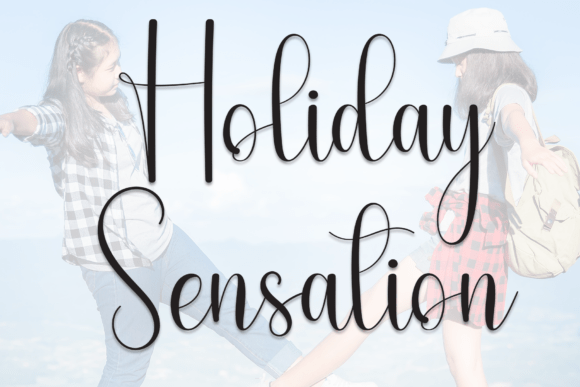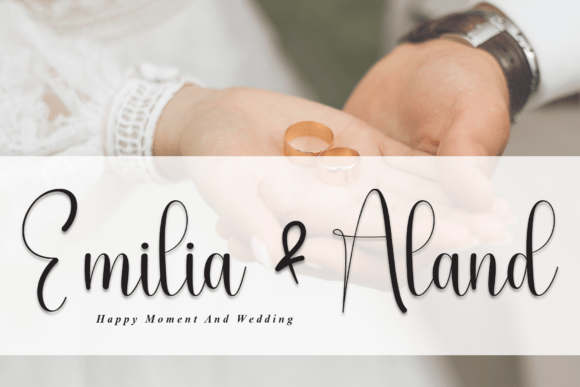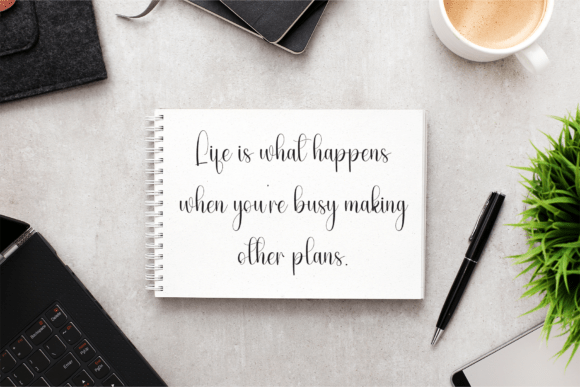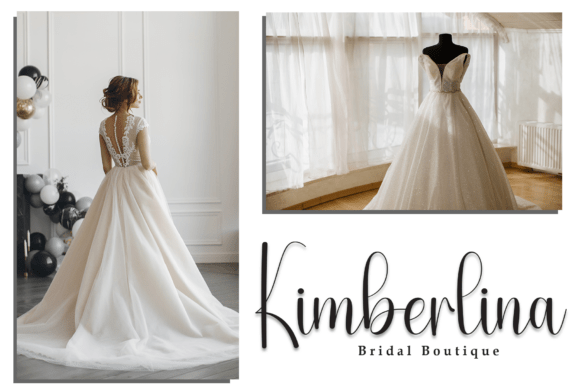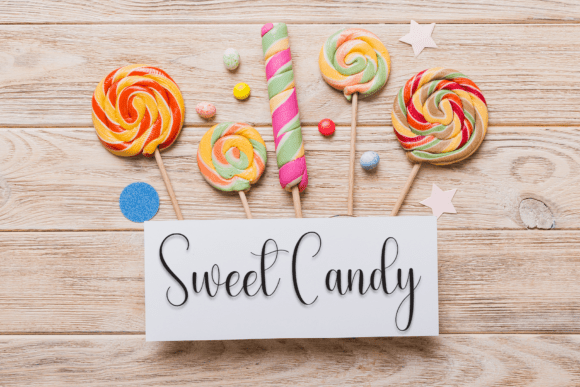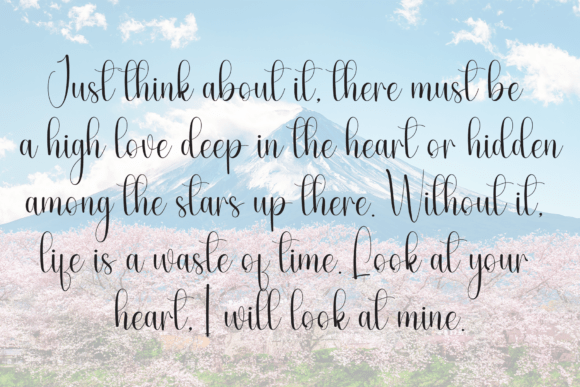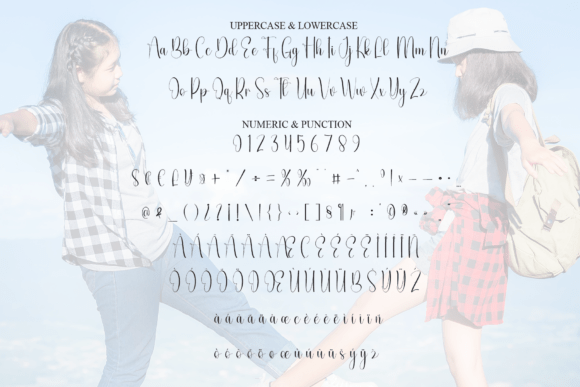
Unleashing the Magic of the Holiday Season with Style
As the holiday season approaches, designers everywhere are searching for the perfect font to capture the essence of the occasion. It’s that moment of pure creative joy, when you stumble upon the perfect combination of elegance and whimsy, and you know you’ve found your holiday sensation. For those who have been searching, we have exciting news: the Holiday Sensation Font is here to bring a touch of sophistication and charm to your designs.
This beautiful handwritten script font is designed to evoke the feeling of a handwritten note, with smooth, flowing strokes that create a natural and sophisticated feel. Whether you’re creating invitations, branding materials, or just want to add a personal touch to your holiday projects, the Holiday Sensation Font is the perfect choice. Its unique balance of modernity and charm makes it a valuable asset for any designer looking to add some holiday magic to their work.
Holiday Sensation Font Key Features
- Unique Characteristics: Hand-drawn illustrations, festive ornaments, and holiday-themed icons, making it ideal for winter and holiday-themed designs.
- Font Style: Script, Display, Handwritten
Holiday Sensation Font Review
First off, I love the festive vibe this font exudes ✨. It’s perfect for any holiday-themed project, from Christmas to Halloween. The playful feel and creative lettering make it an excellent choice for designers looking to add a bit of whimsy to their designs.
The font’s versatility shines through in its ability to be used in various contexts, from logos to signage to digital graphics. The bold and bold italic weights provide an excellent range of options for designers to work with.
Here are some key features that work well:
- Festive and playful feel ✨
- Highly versatile
- Range of weights (regular, bold, bold italic)
However, I do have a few concerns:
One major limitation is the font’s limited language support ⚠️. As it’s primarily designed for English-speaking audiences, it may not be the best choice for international projects. Additionally, the font’s complexity may make it difficult to use for designers who prefer a more straightforward design process.
Overall, the Holiday Sensation Font is a fun and festive addition to any designer’s toolkit. While it may have its limitations, its unique feel and versatility make it a great choice for the right project.
Use the Holiday Sensation Font to create festive and playful designs, such as:
Christmas and New Year’s Eve invitations, posters, and social media graphics.
Thanksgiving and Halloween party decorations, invitations, and promotional materials.
Use bold and bright colors to make your designs stand out and add a touch of holiday cheer.
Experiment with different font sizes and styles to create visually appealing and engaging designs.
Alternatives to Holiday Sensation Font
Cream Soda is a playful, cursive font perfect for creating a nostalgic and whimsical atmosphere. It’s ideal for designs related to food, fashion, and home decor. Compared to Holiday Sensation Font, Cream Soda has a more subtle and elegant feel, making it suitable for a broader range of applications.
Great Vibes is a modern, handwritten font that exudes a carefree and optimistic vibe. It’s perfect for designs related to travel, entertainment, and lifestyle. Unlike Holiday Sensation Font, Great Vibes has a more relaxed and casual feel, making it ideal for designs that require a laid-back tone.
Bebas Neue is a bold, sans-serif font that’s perfect for designs that require a strong and modern look. It’s ideal for designs related to technology, sports, and fashion. Compared to Holiday Sensation Font, Bebas Neue has a more edgy and contemporary feel, making it suitable for designs that require a bold statement.